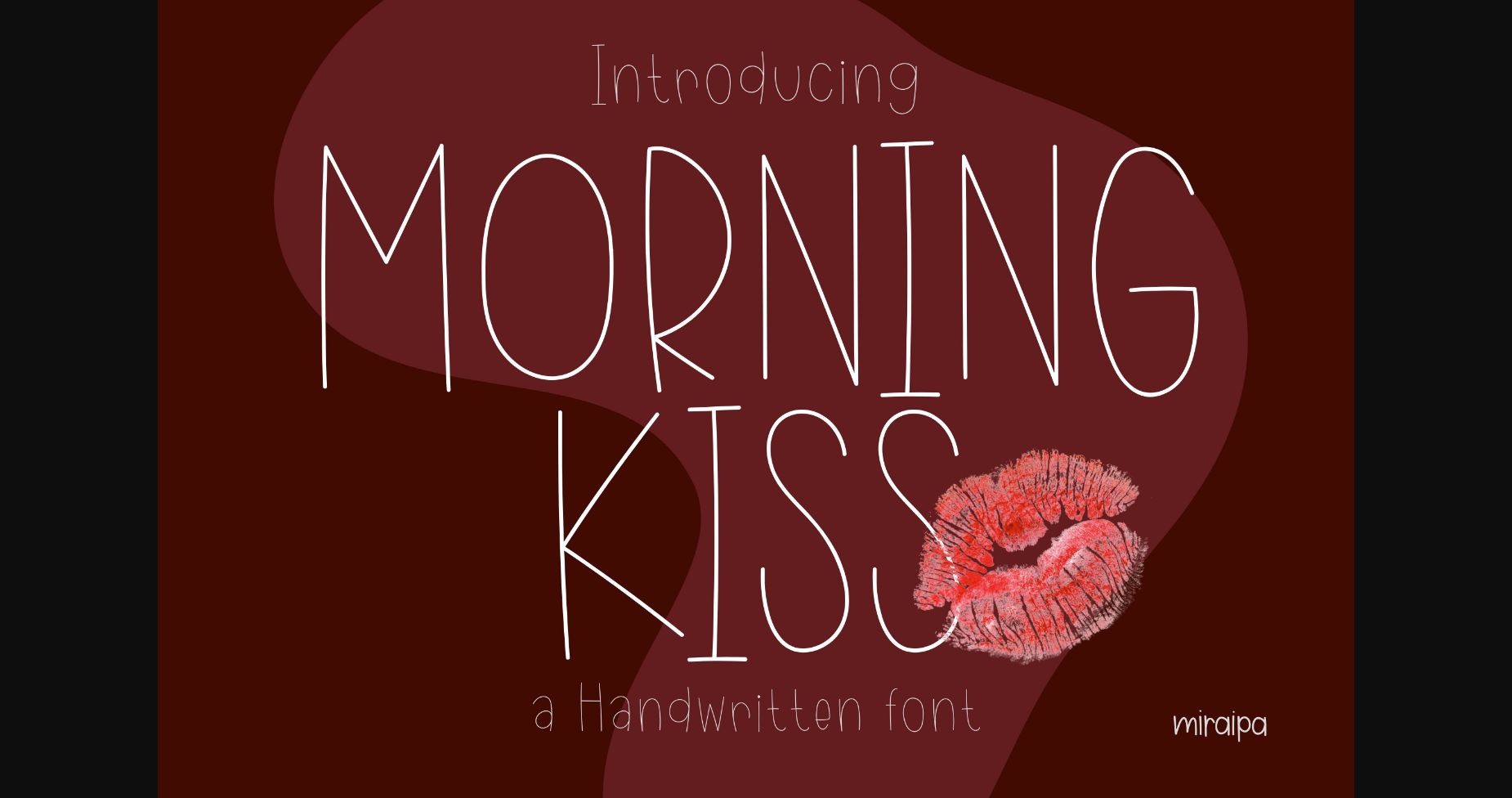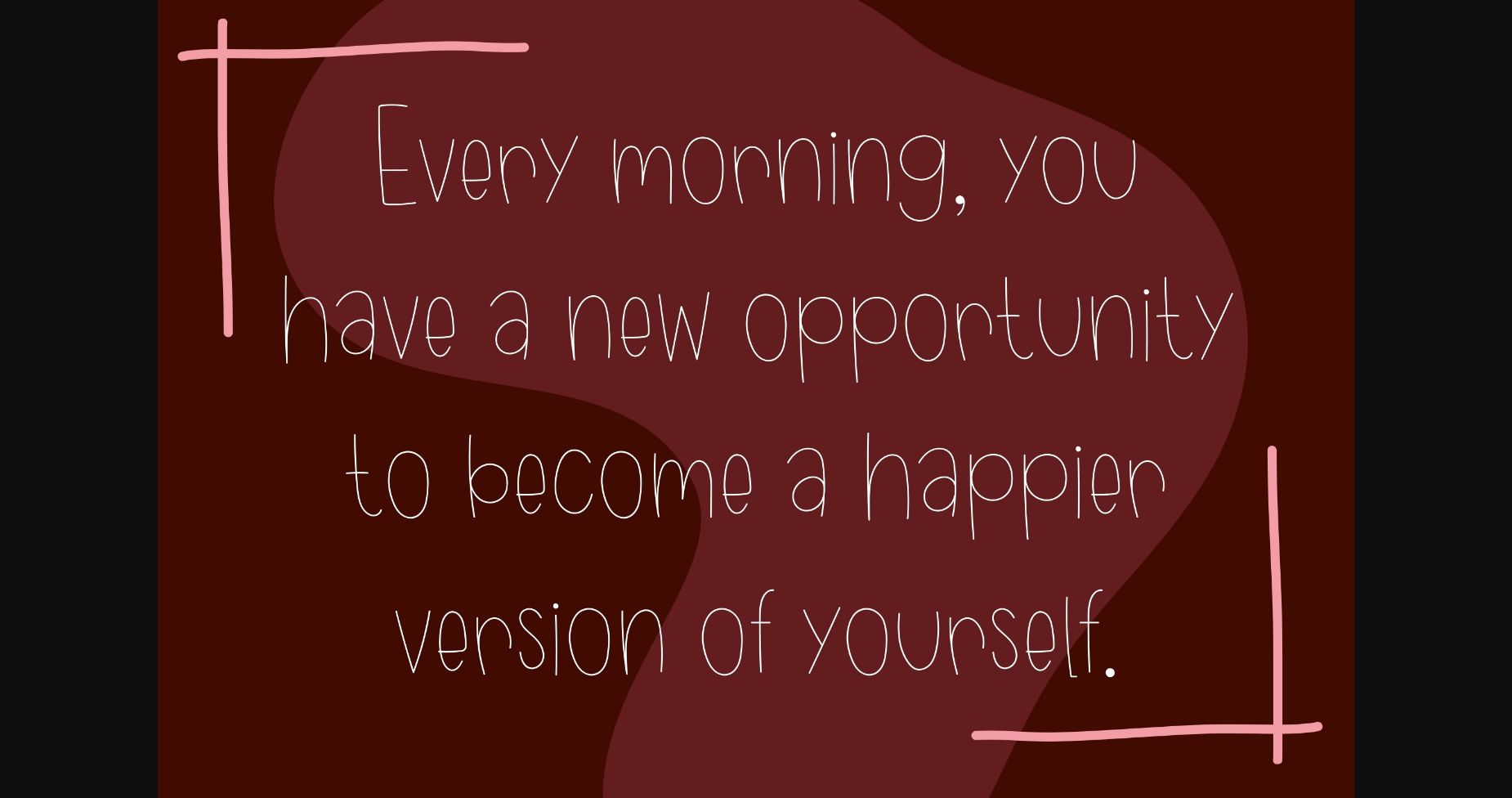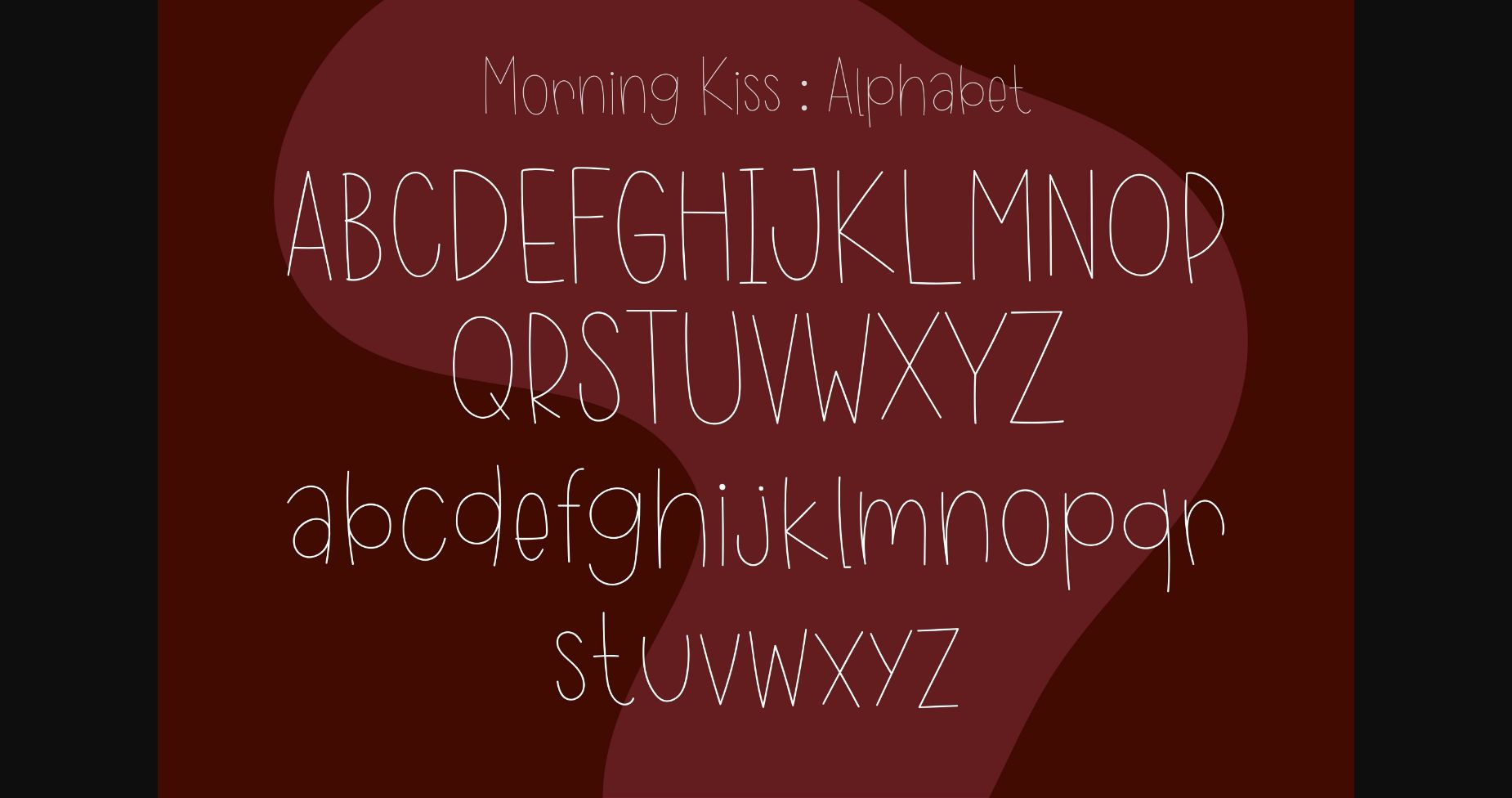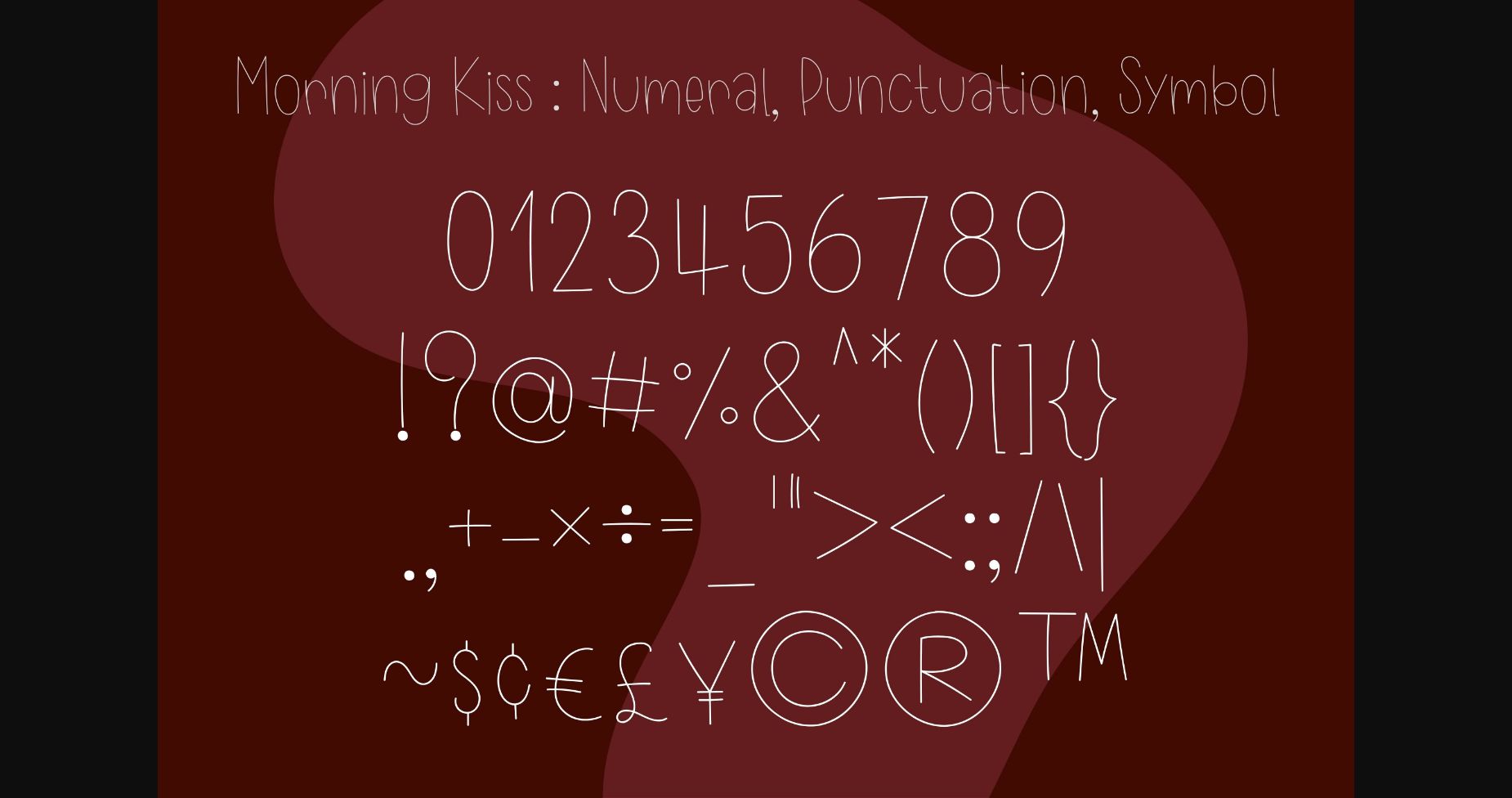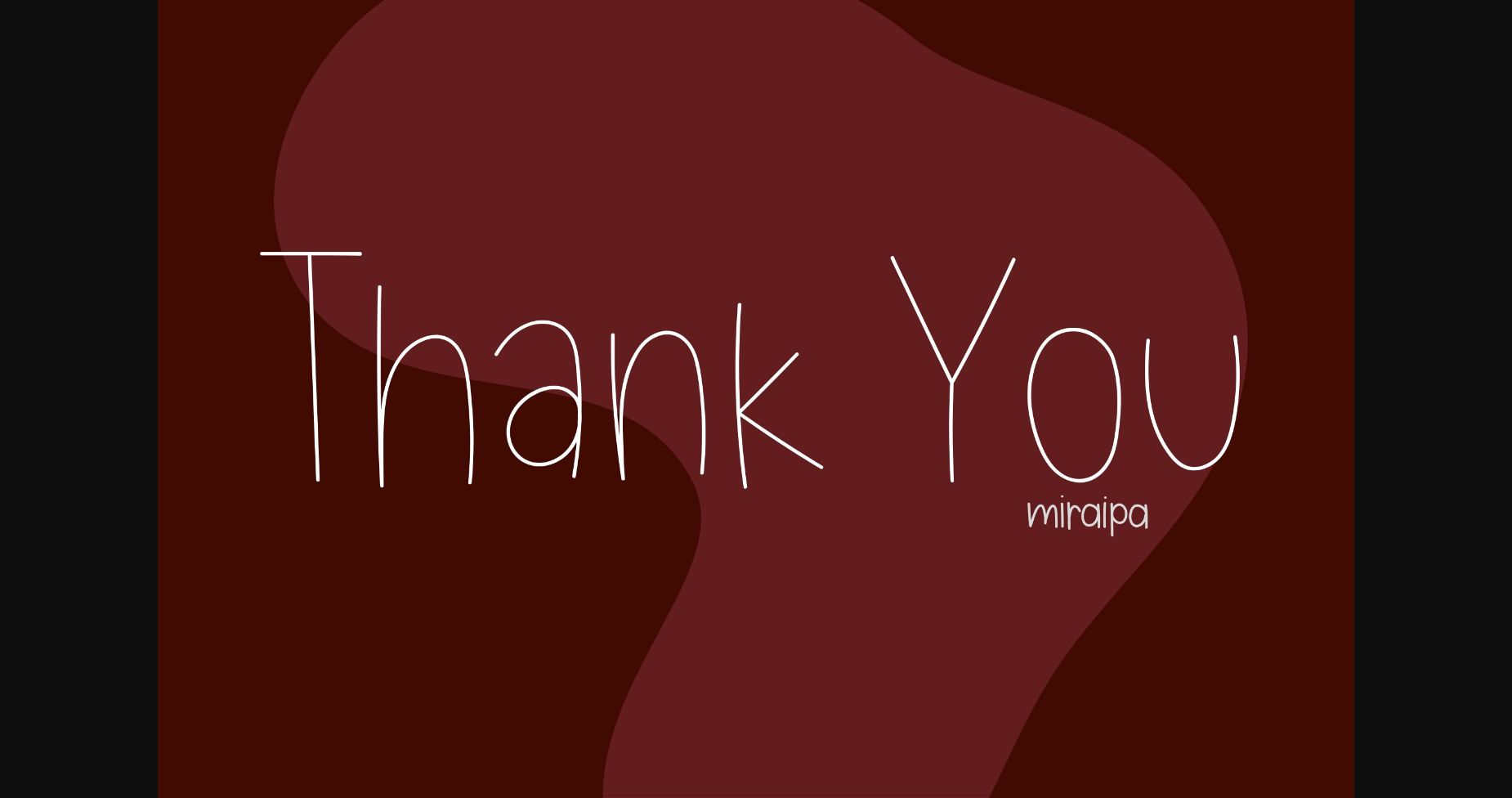
Morning Kiss Font
About Morning Kiss Font
Morning Kiss is a cute handwritten font, designed in a friendly and lovely style. It will add an incredibly joyful touch to your designs. Add this beautiful handwritten font to each of your creative ideas and notice how it makes them stand out!